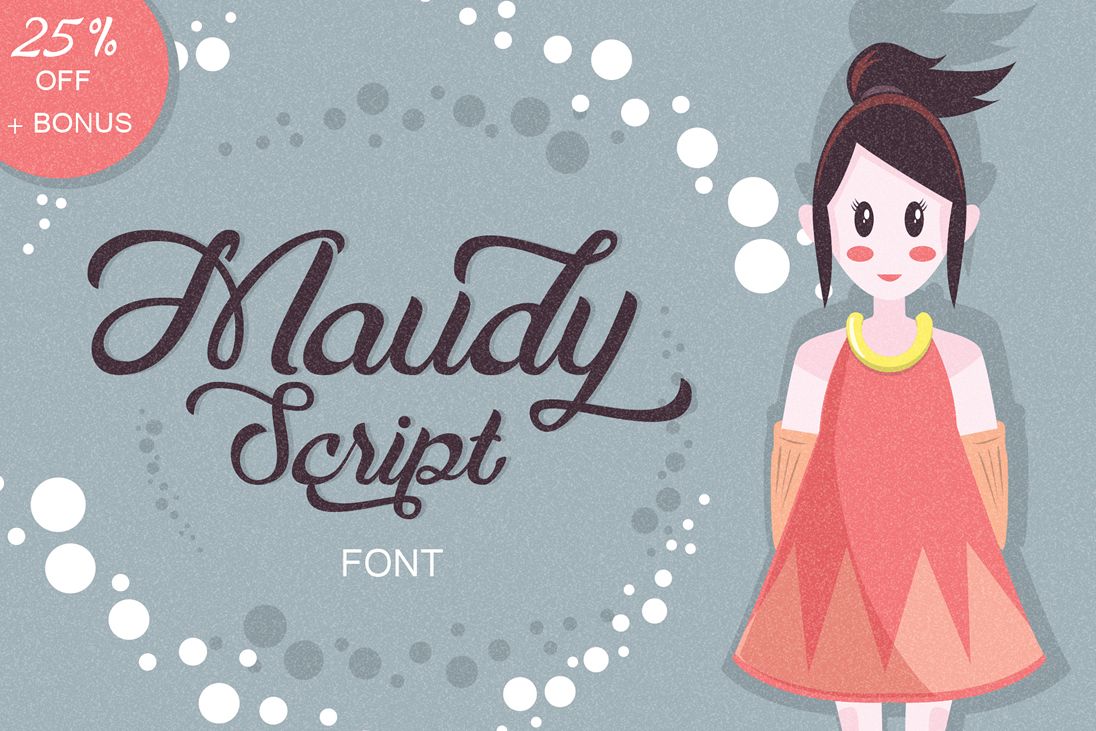
Maudy Script + Bonus
Maudy Script is bold, modern & multipurpose typeface that natural handwriting brush lettering. Suitable for logo, packaging, cover book title, poster, t-shirt, wedding invitation, greeting card, etc. 272 glyphs and alternate character contain with opentype features.